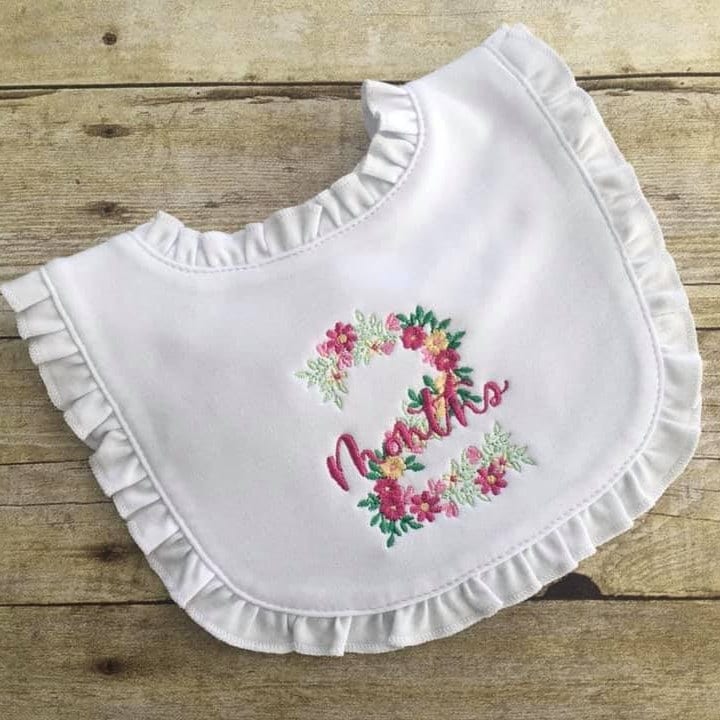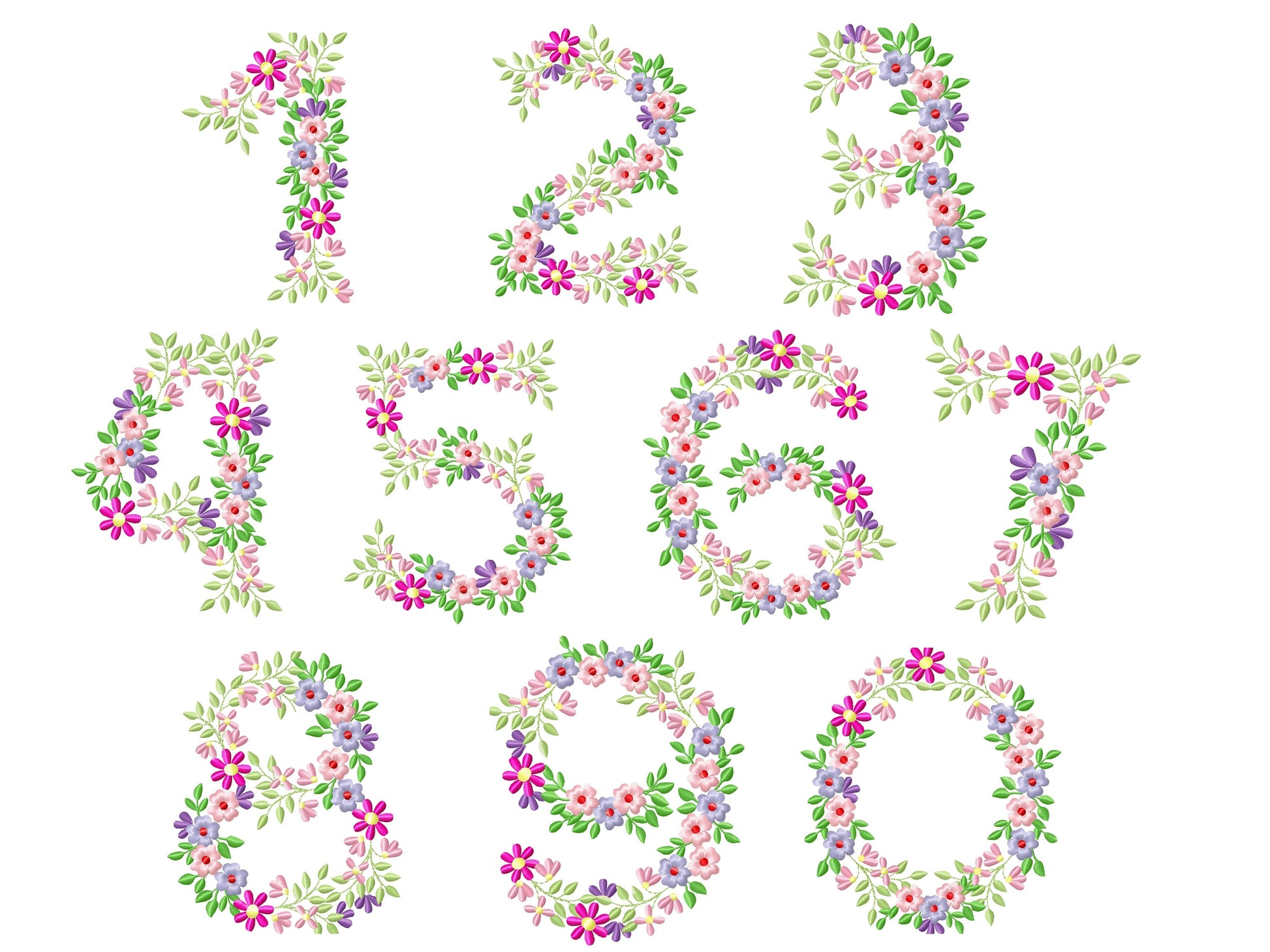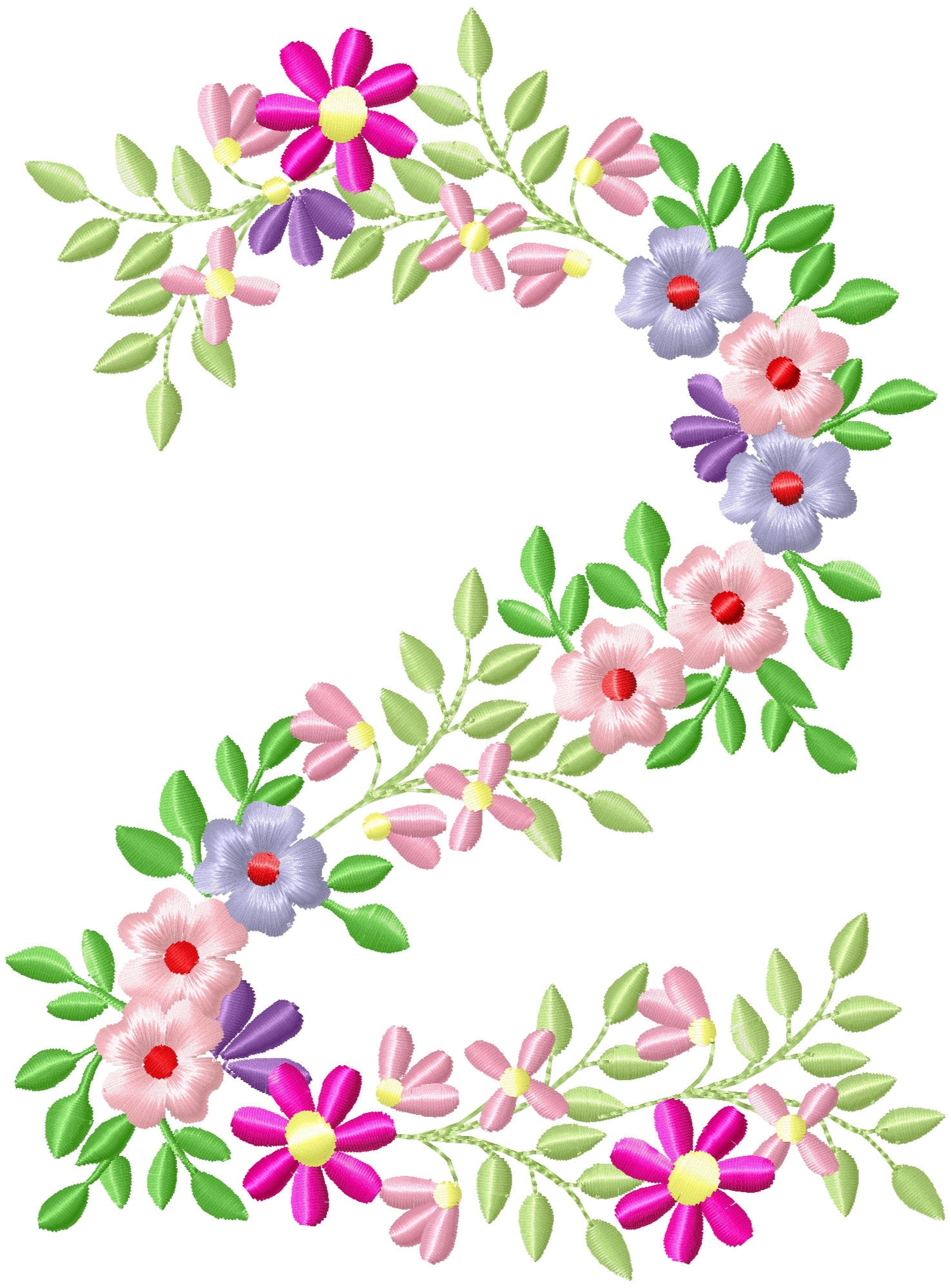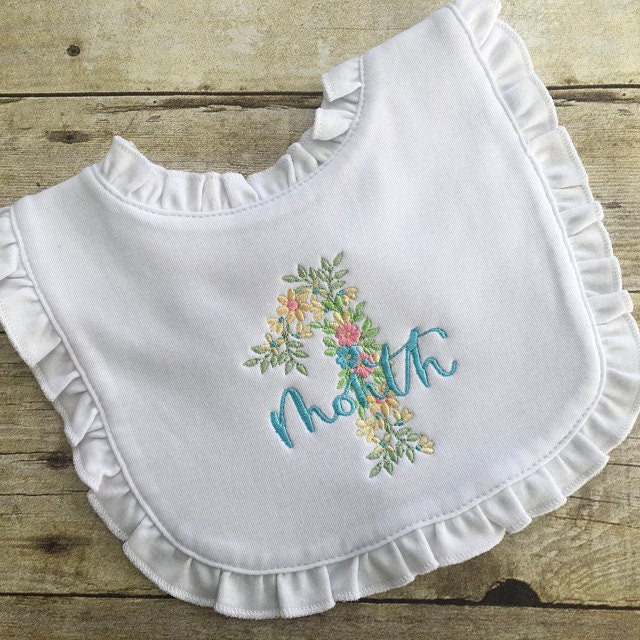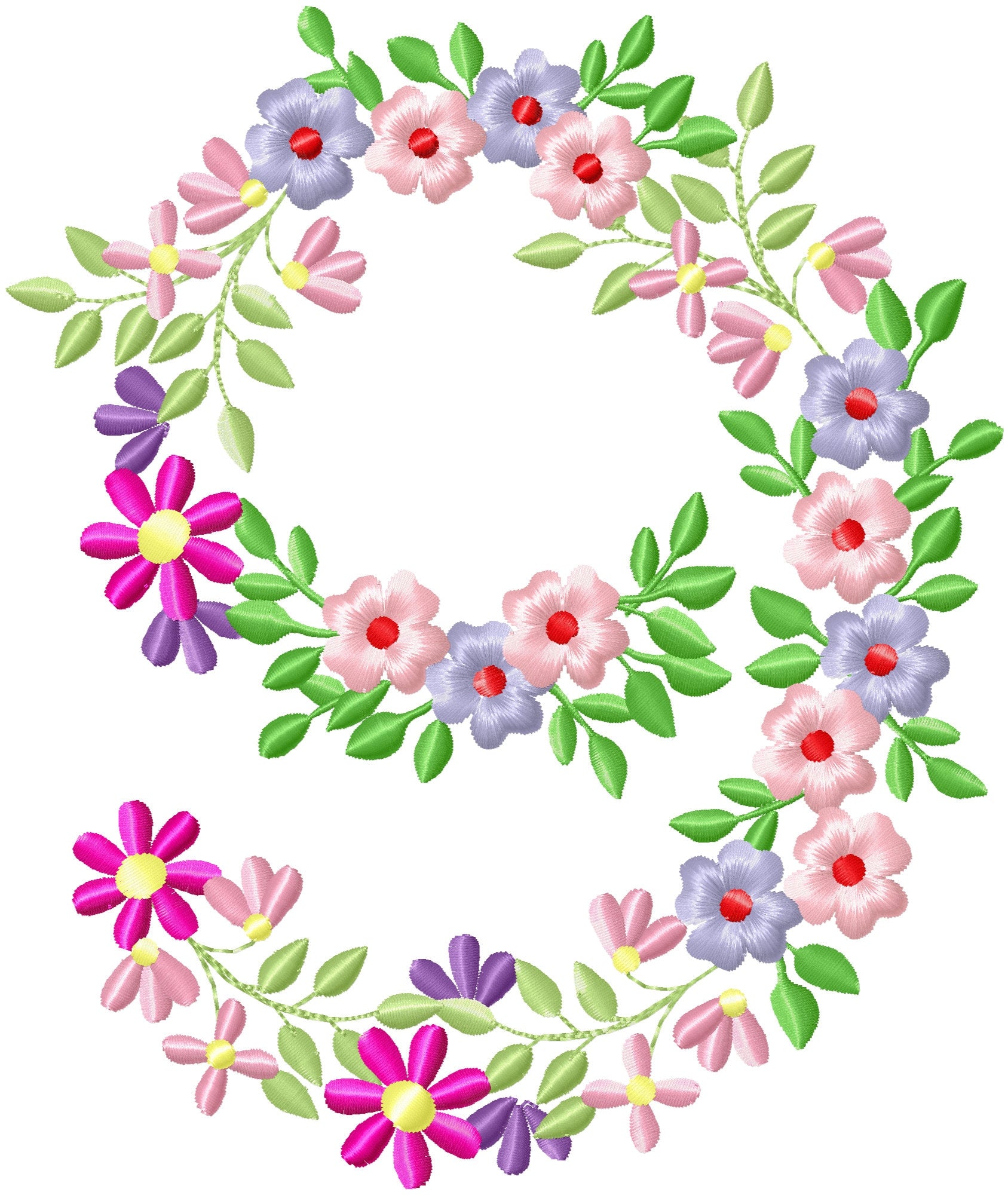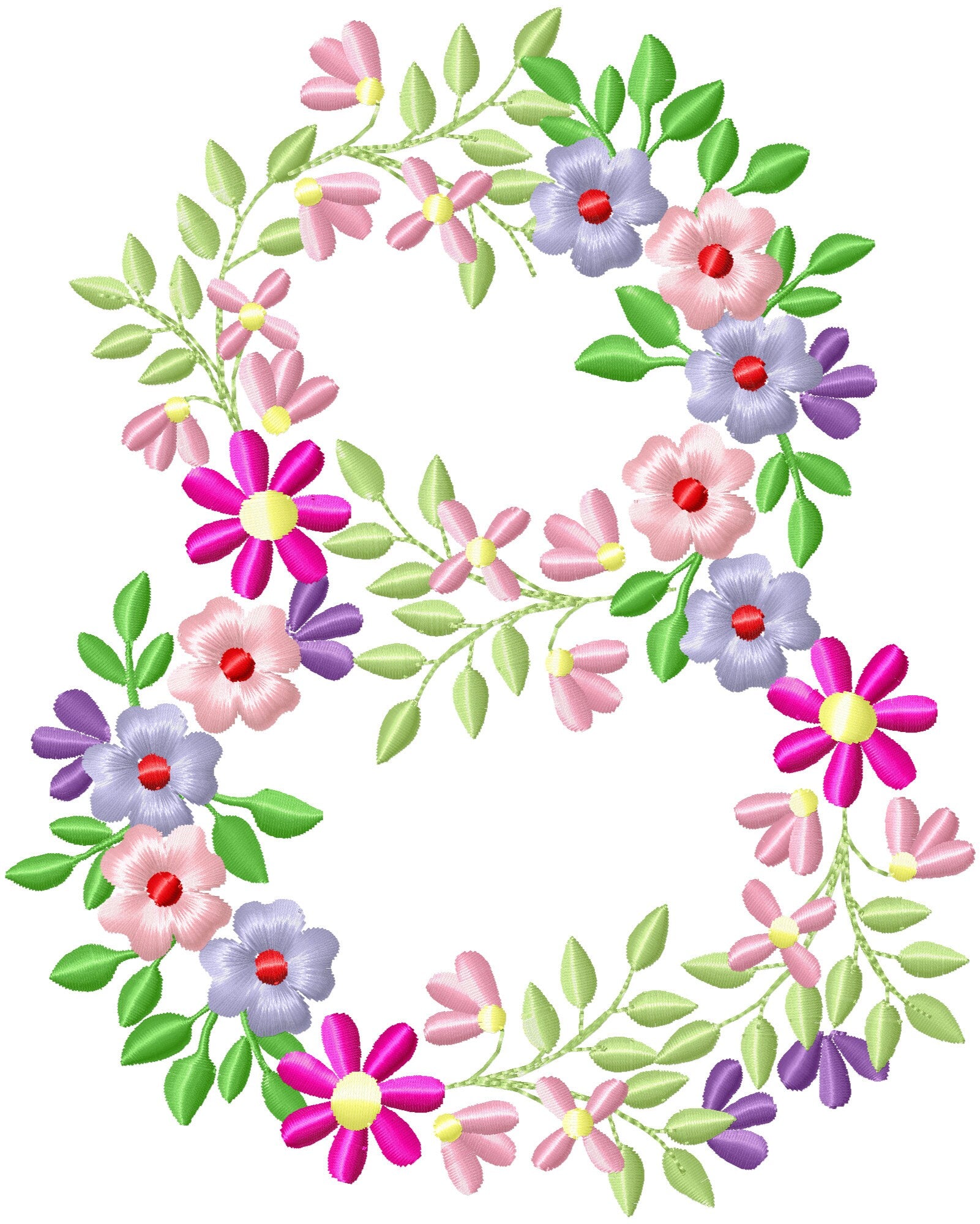
Country Floral Numbers
Country floral birthday numbers decorated with old-fashioned flowers. Pretty for birthday shirts, garden flags, pillows and gifts.